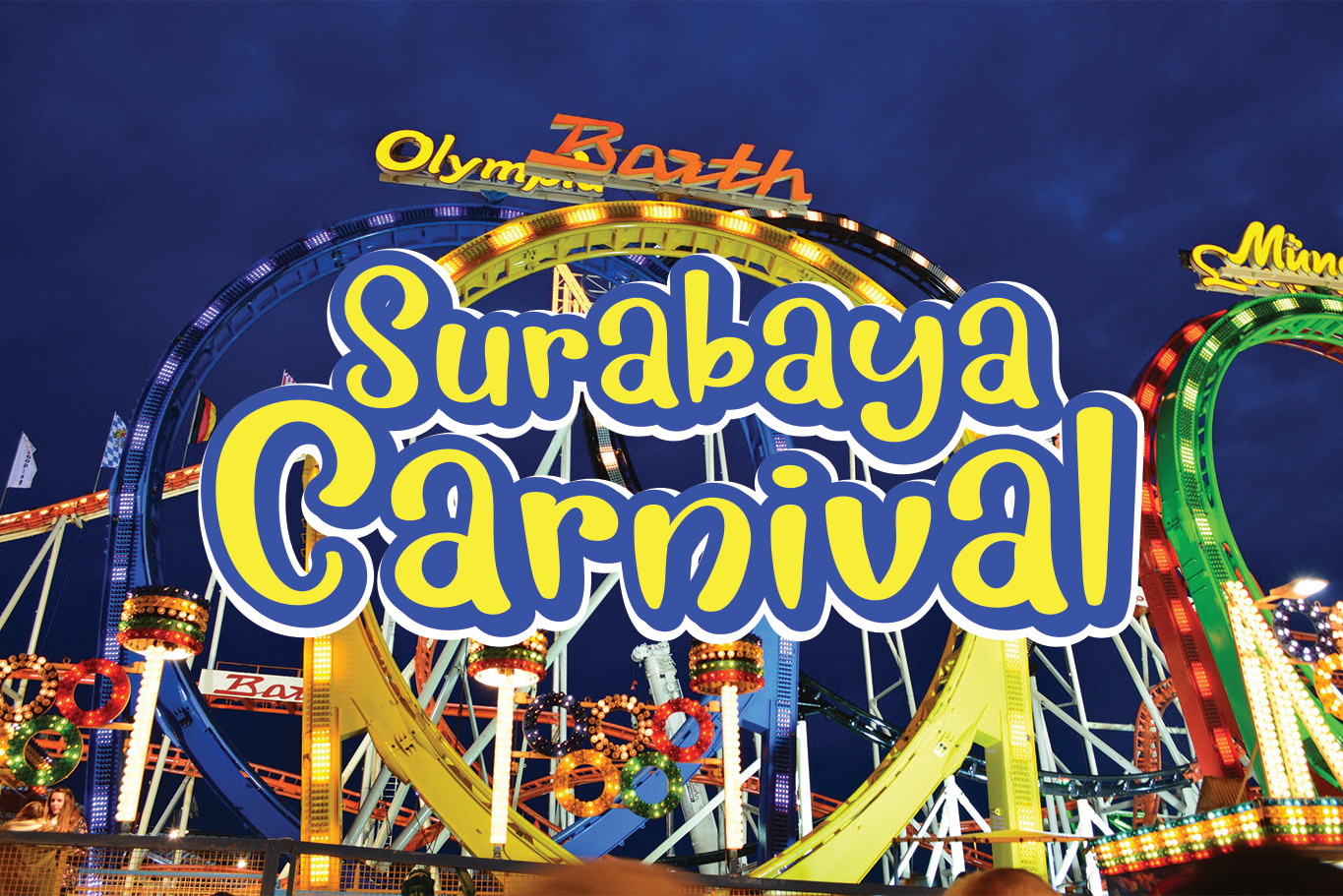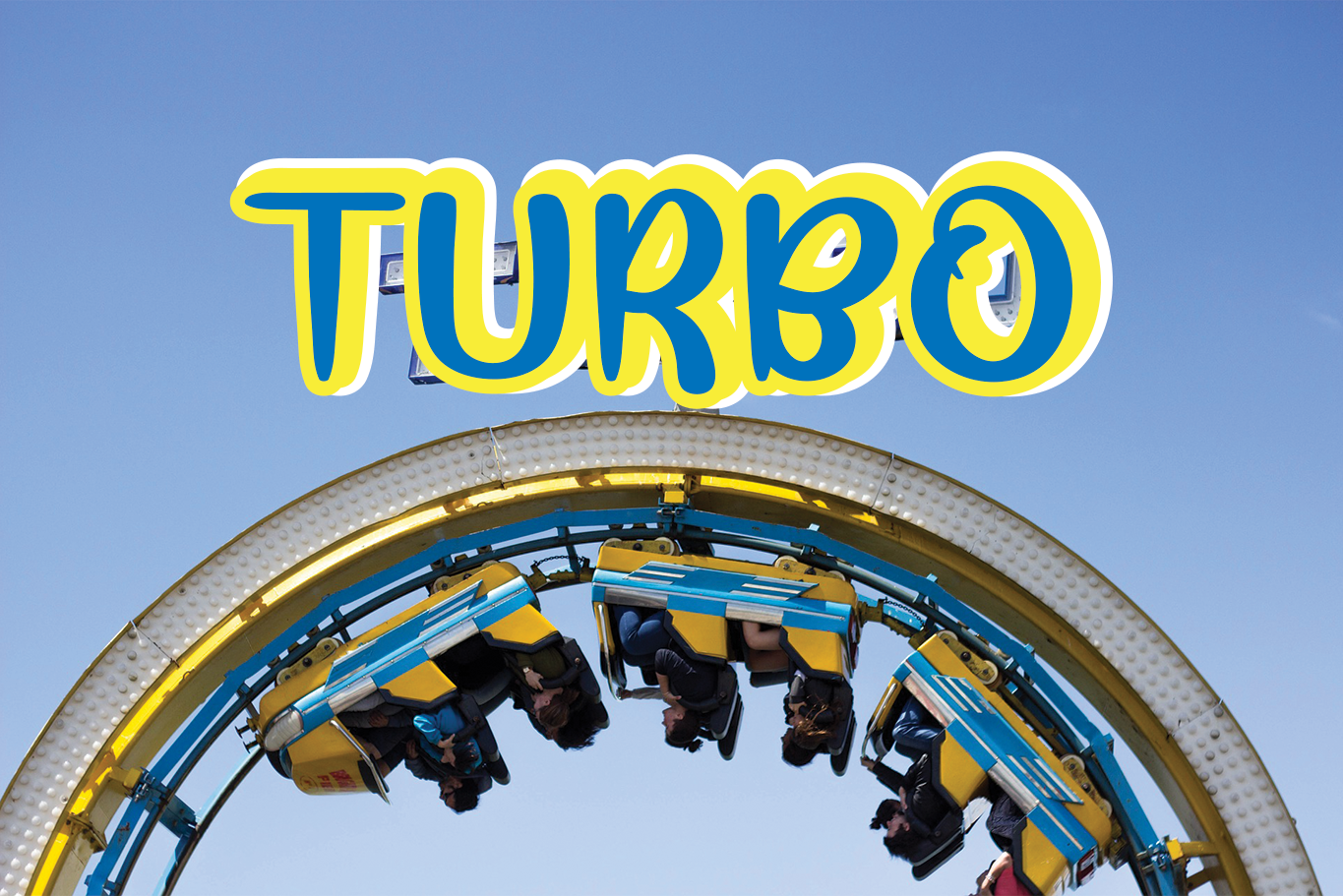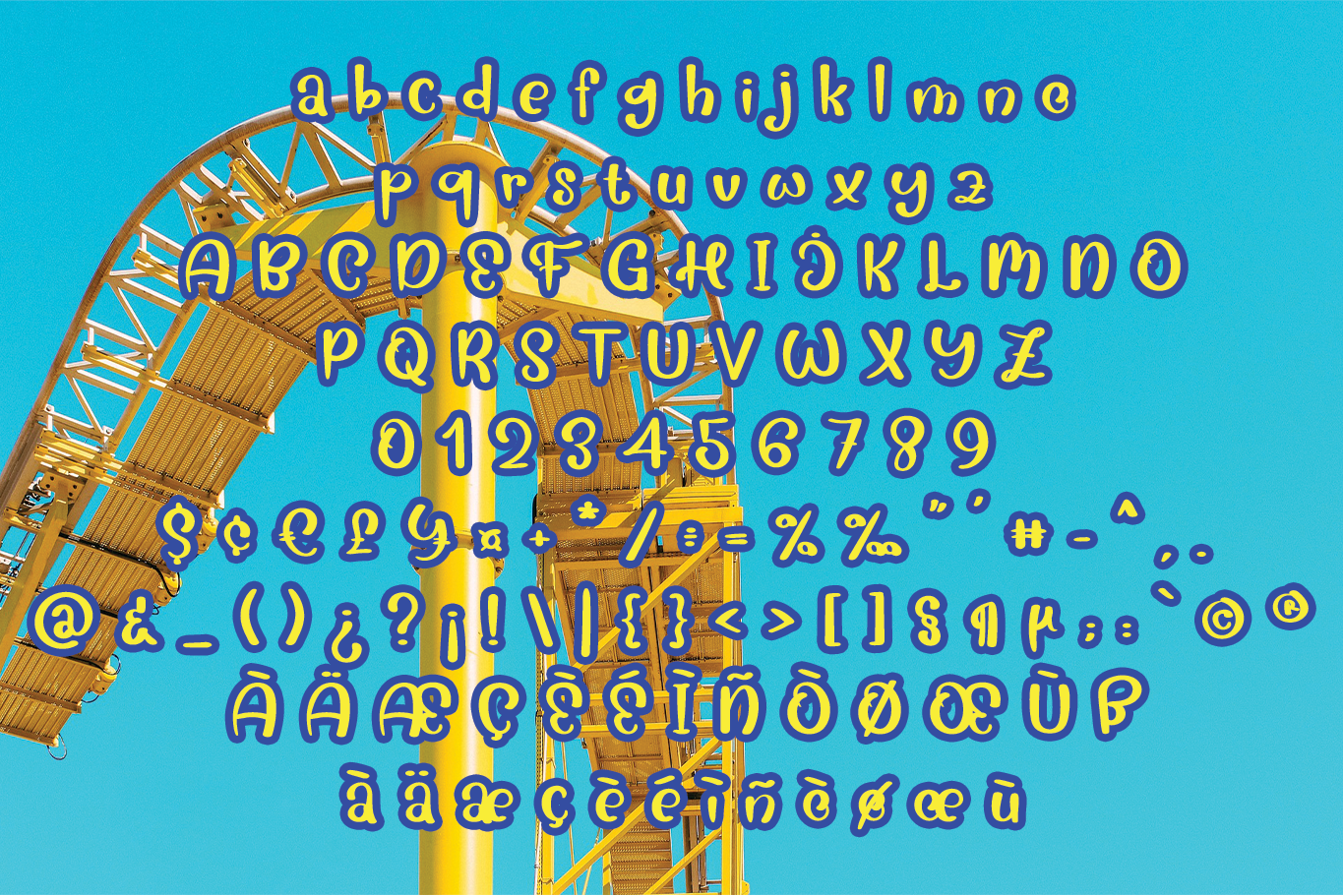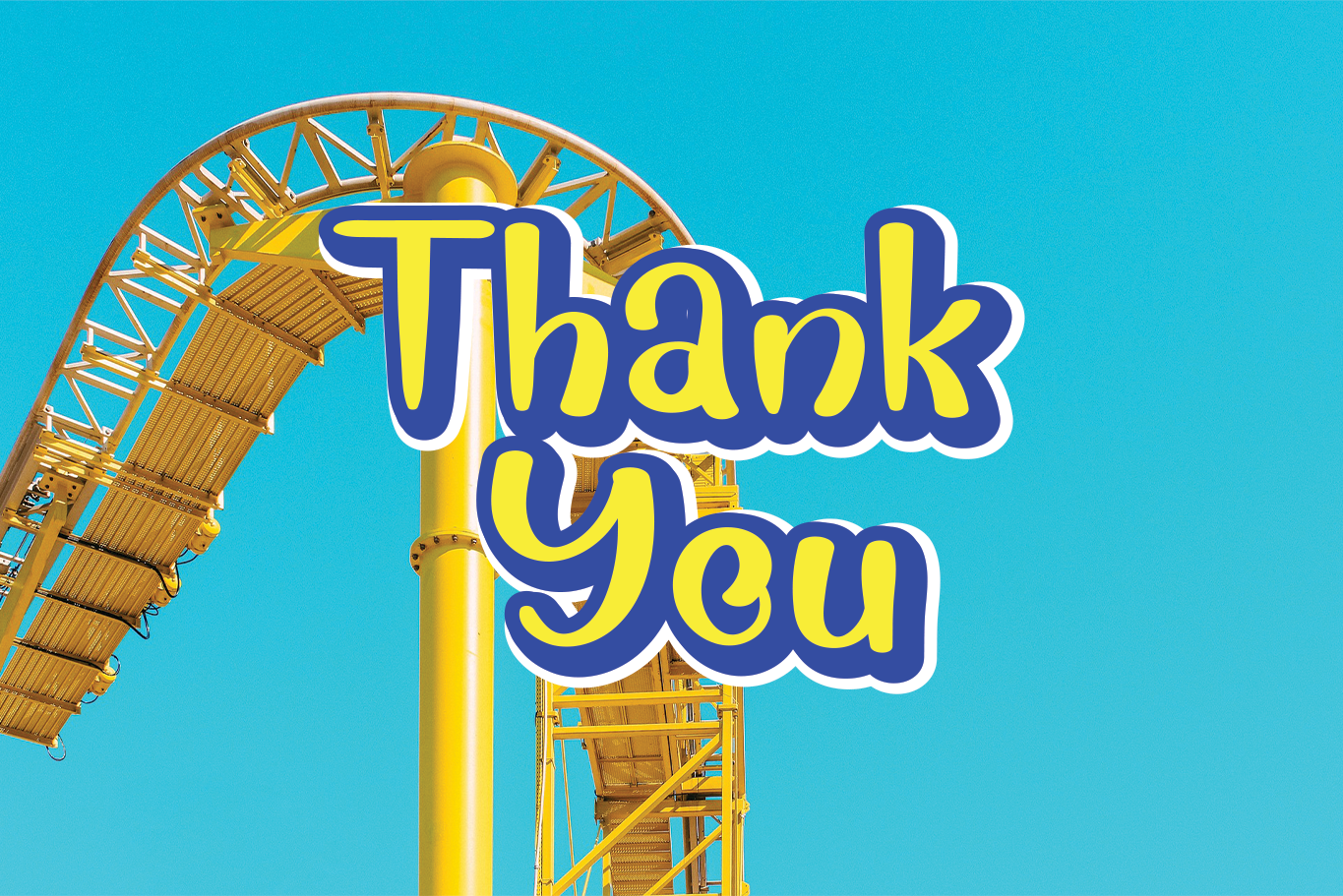
Coasters Font
Coasters Display Font
This is a cute display font. Clean and a little bit quirky, this font is the perfect fit for all of your logos, branding, social media, and crafty DIY projects.